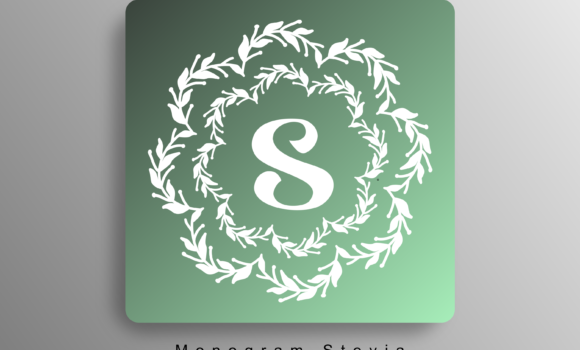
Monogram Stevia Font – Free Download Introduction to Monogram Stevia Font Monogram Stevia is a highly detailed and beautiful decorative font. 📸 Preview Gallery 6 images 📌 Product Name Monogram Stevia Font 👤 Author Bold Point 📂 Category Explore ⬇️